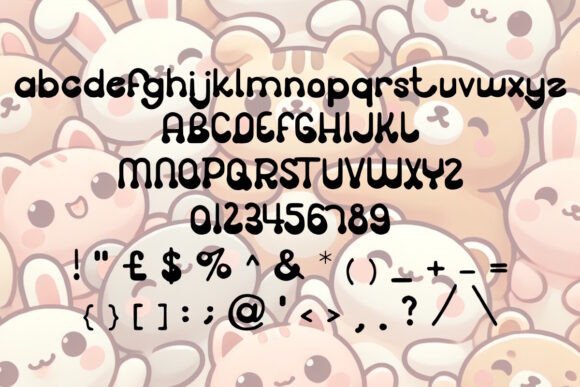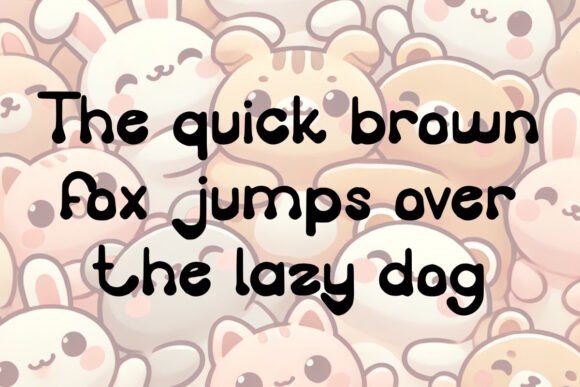
Introduction to Heavy Hugs Font
Wrap your designs in warmth with Heavy Hugs.
This bottom-heavy, rounded font adds a playful and welcoming vibe to every project Its quirky and bold style is perfect for adding personality to branding, social media graphics, or handmade crafts.
Key Features of Heavy Hugs Font
Why Choose Heavy Hugs Font?
Heavy Hugs Font offers exceptional quality and versatility, making it a valuable addition to your design toolkit. Whether you’re creating for personal projects or commercial use, Heavy Hugs Font delivers professional results.